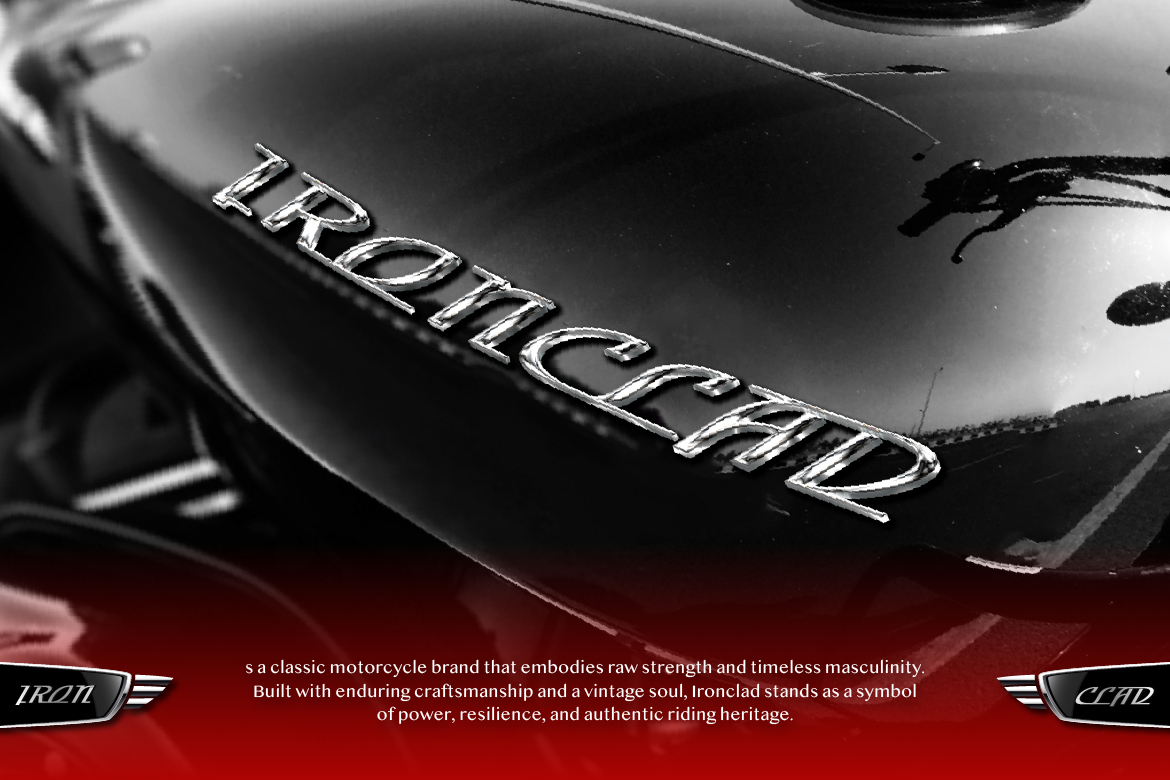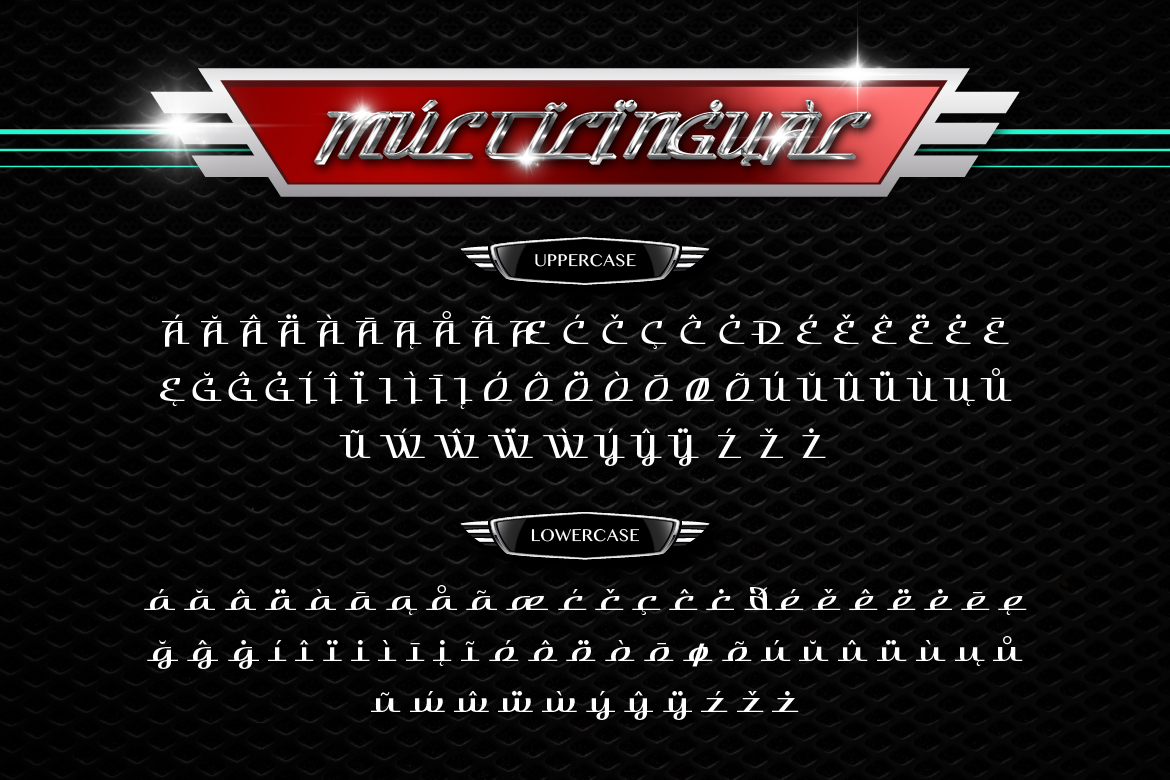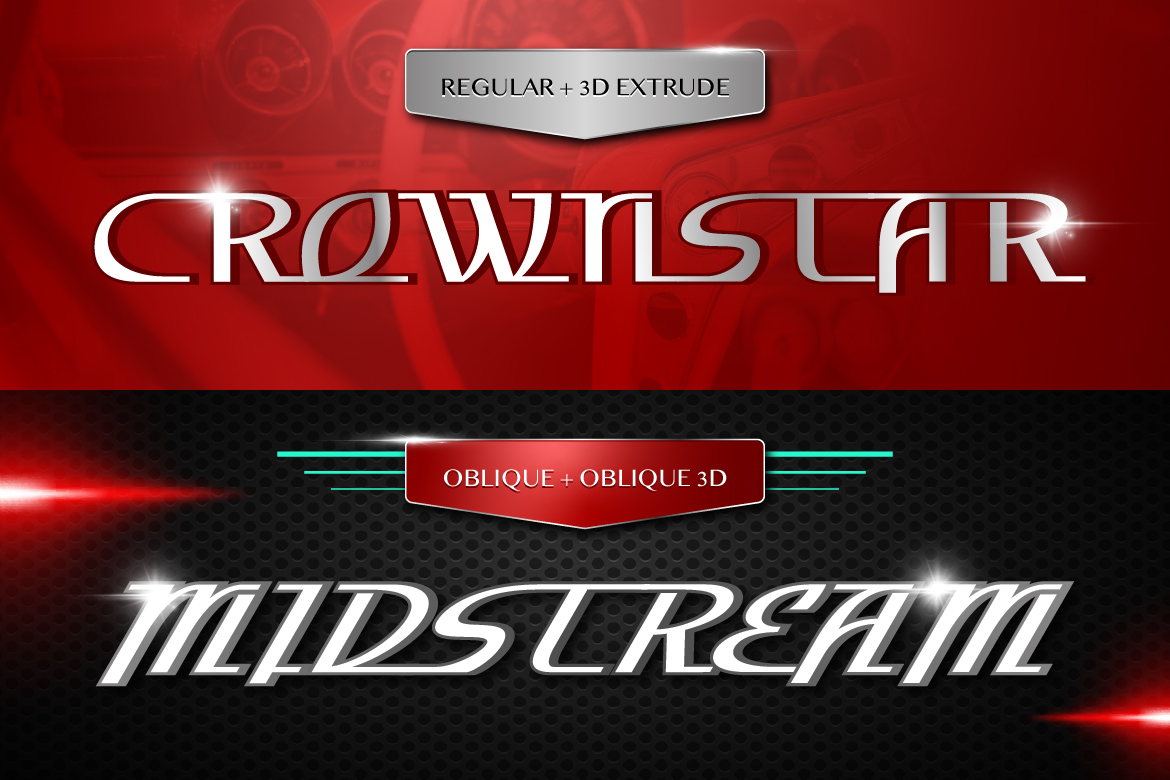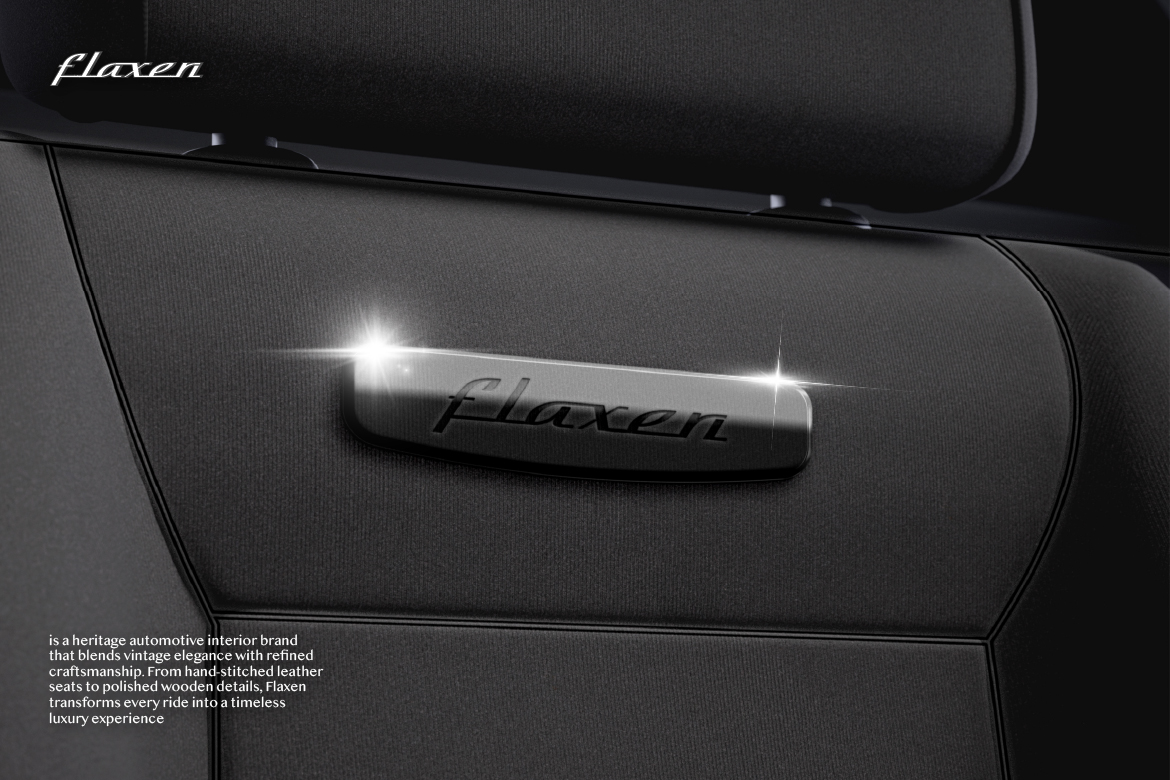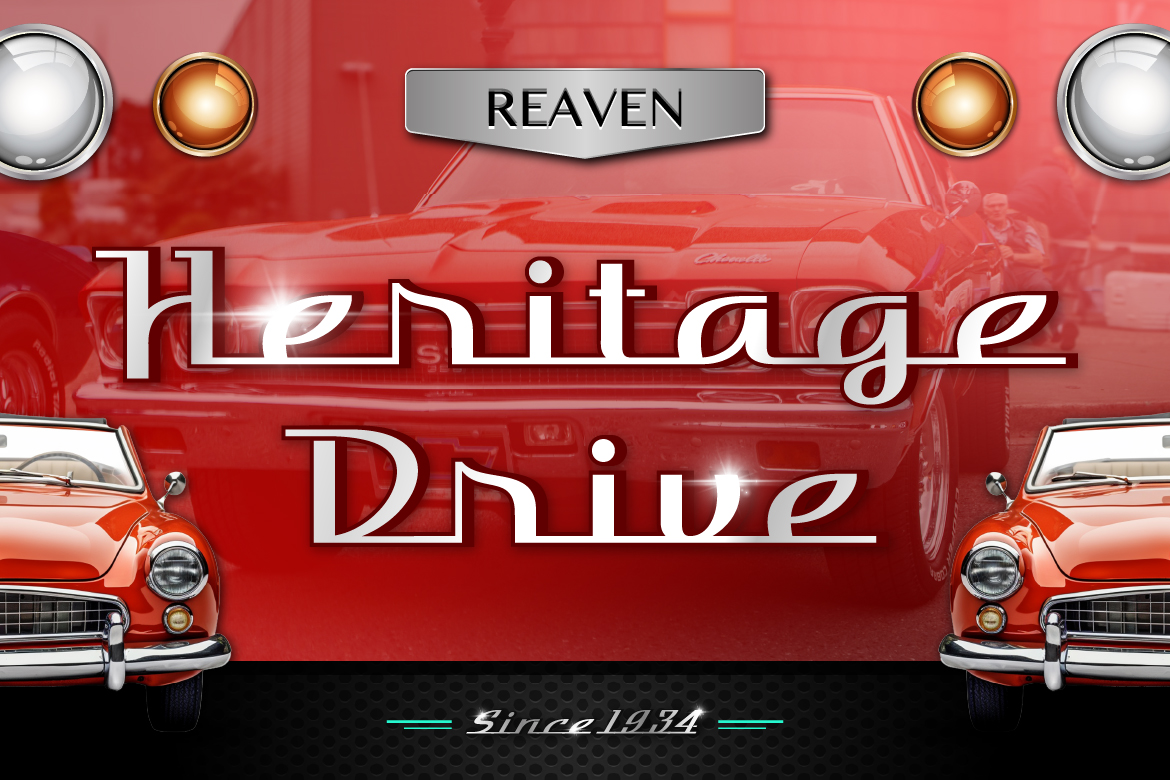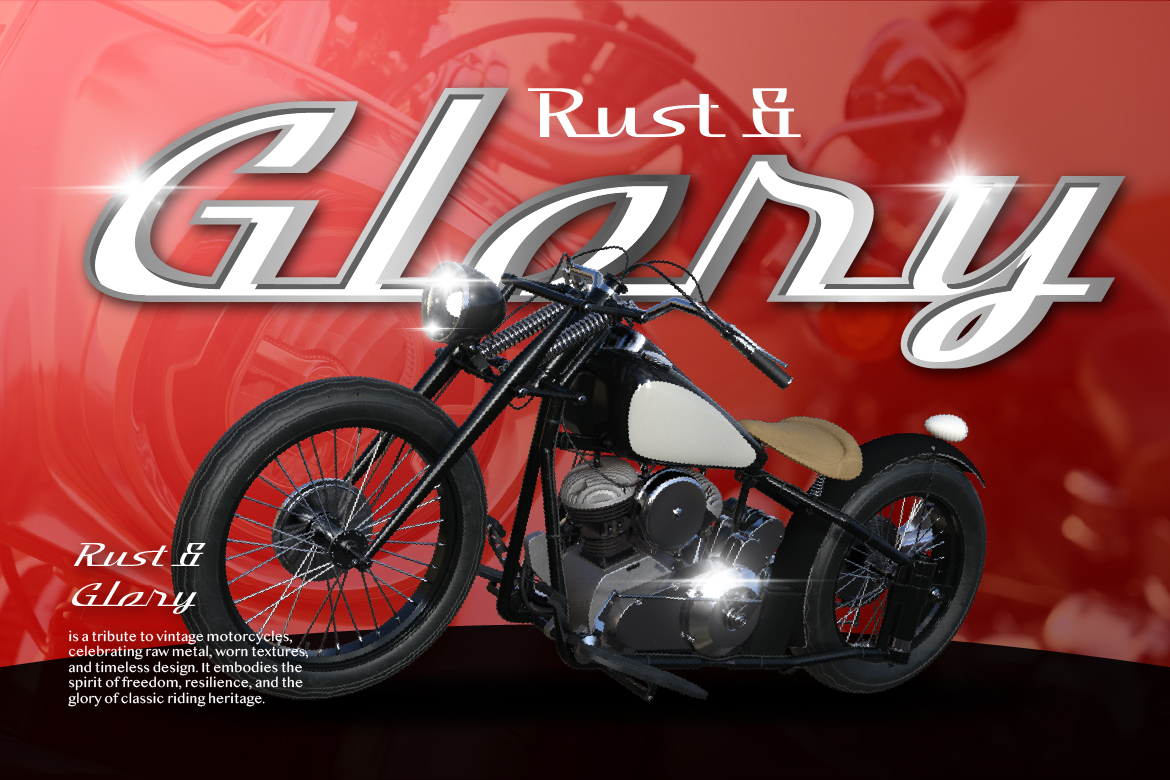
- Macartee
Meet Macartee, a bold vintage typeface inspired by classic car culture. With its sleek lines, smooth curves, and a touch of retro flair, this font brings back the golden era of automotive design. Macartee feels like a shiny emblem you’d find on the hood of a vintage ride fast, stylish, and full of character.
This typeface comes in 4 styles (Regular, Oblique, 3D Extrude, and Oblique 3D), giving you flexibility whether you want a clean modern look or a powerful 3D statement. Perfect for logos, posters, badges, and any project that needs a dash of speed and retro energy.
If you’re looking for a typeface that combines vintage aesthetics with a modern edge, Macartee is ready to hit the road.